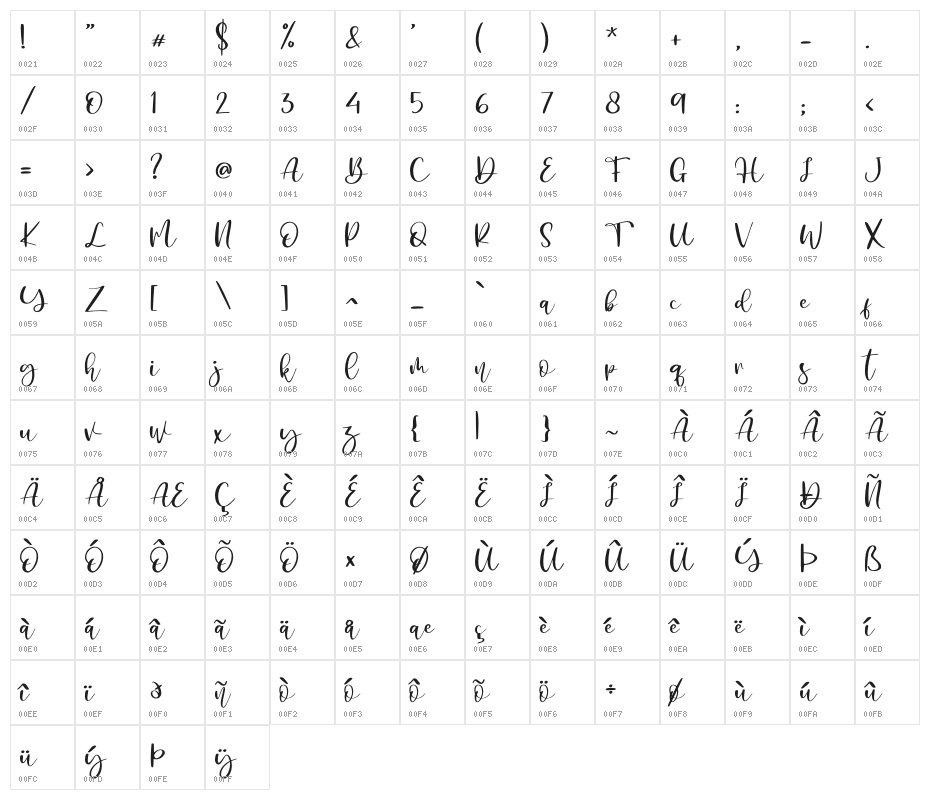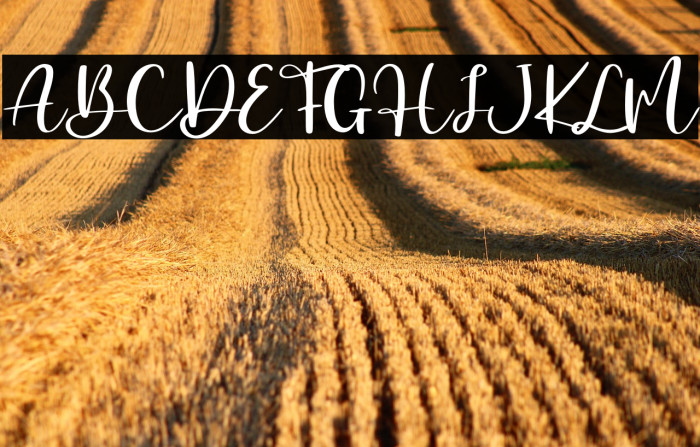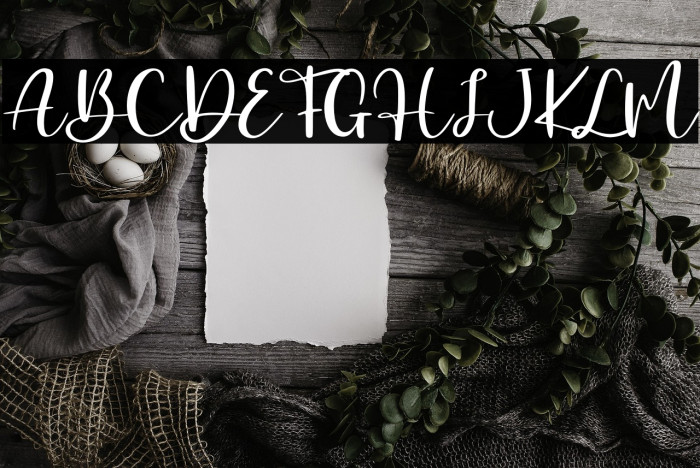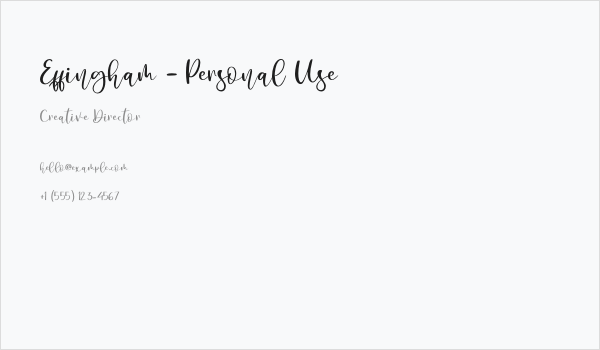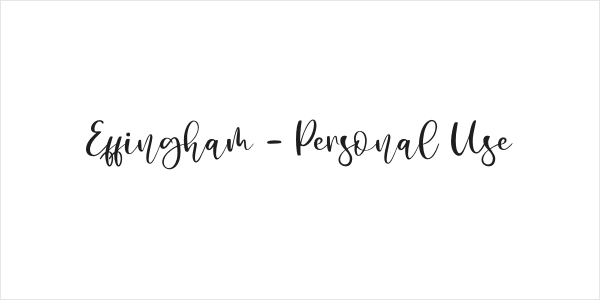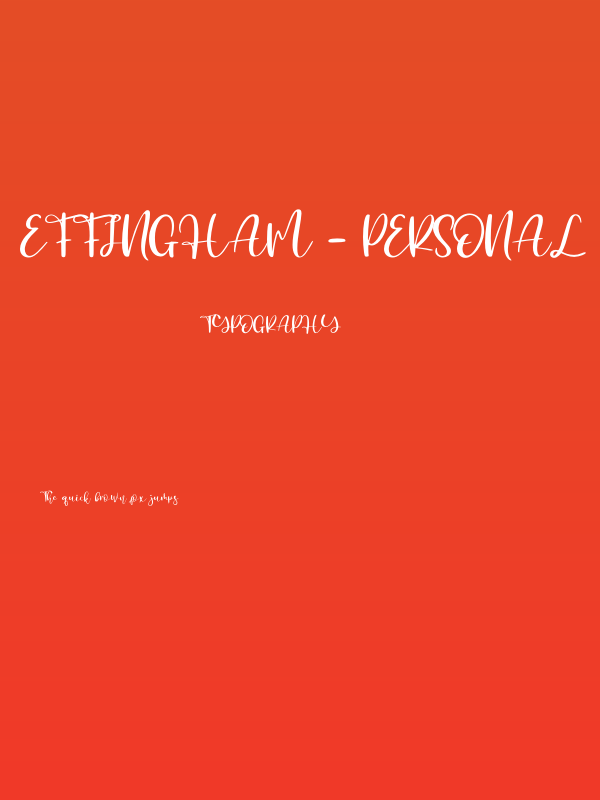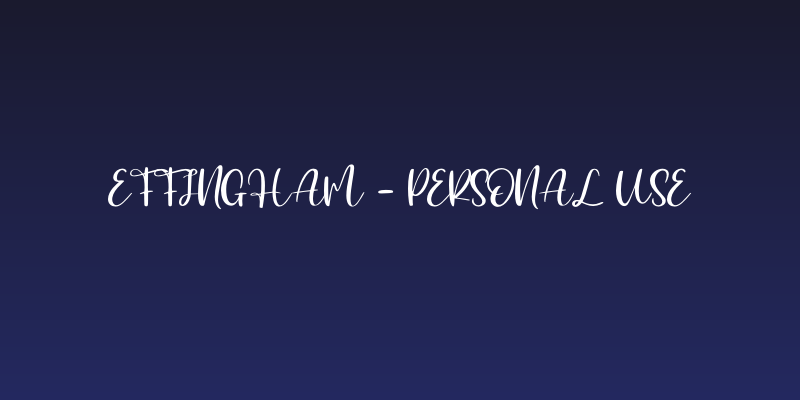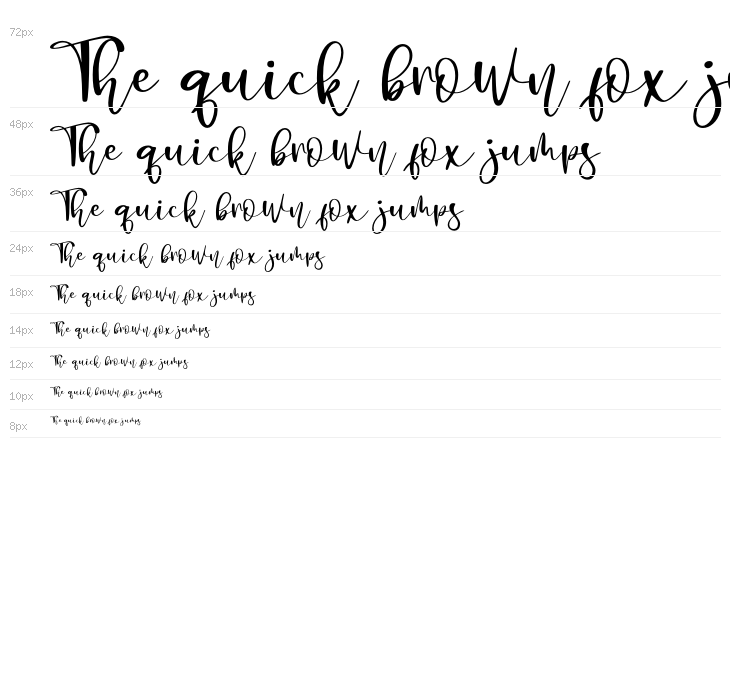
Effingham - Personal Use Font
Effingham - Personal Use Description
This font features a lively and expressive handwritten style, characterized by its flowing, cursive letterforms. The uppercase letters exhibit a playful elegance with loops and flourishes, while the lowercase letters maintain a consistent rhythm and fluidity. The numbers are bold and dynamic, complementing the overall aesthetic. Special characters are thoughtfully designed to match the whimsical nature of the font. The strokes vary in thickness, adding a sense of movement and energy. This font is perfect for projects that require a personal touch, such as invitations, greeting cards, and creative branding.
| Proposed Projects | Ideal for invitations, greeting cards, creative branding, and personal projects. |